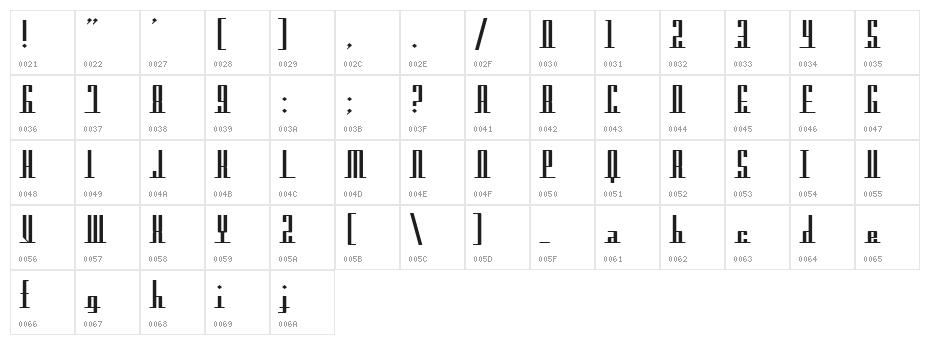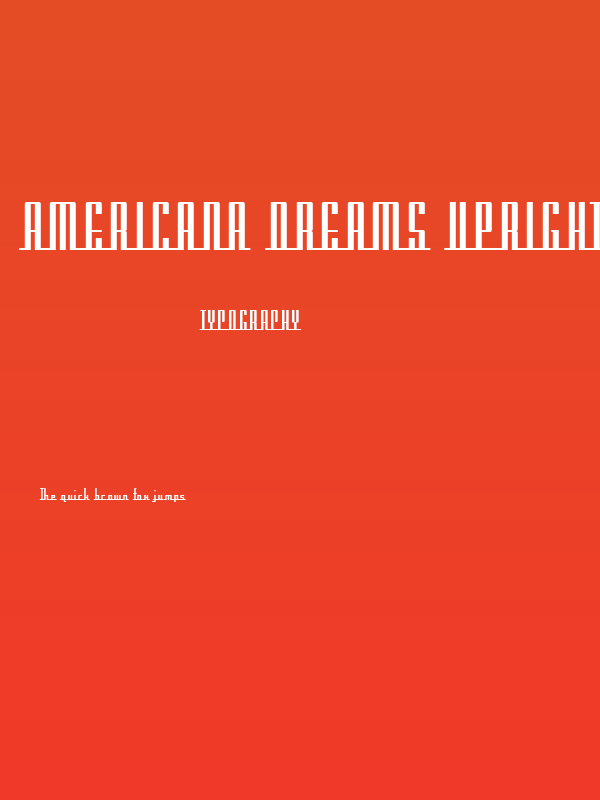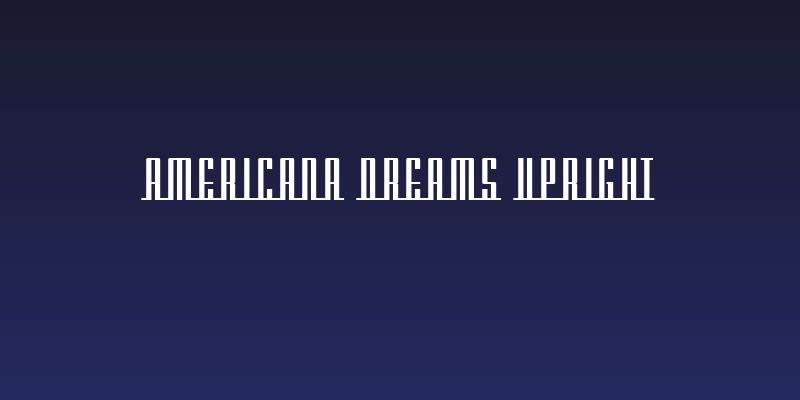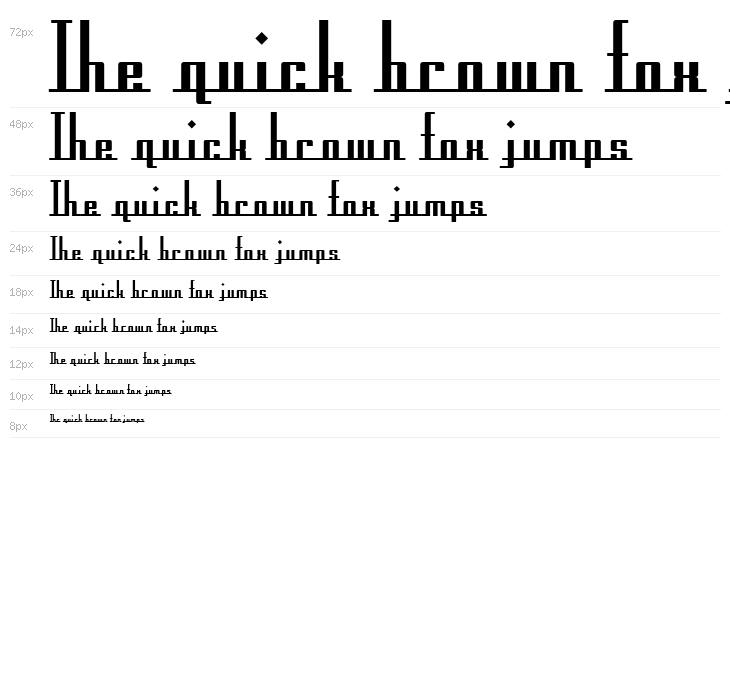
Americana Dreams Upright Font
Americana Dreams Upright Description
This font features a distinctive and bold design with a modern, geometric aesthetic. The uppercase letters are tall and narrow, with sharp angles and a consistent stroke width that gives a uniform appearance. The lowercase letters maintain the same geometric style, with some characters having unique features, such as the lowercase 't' with its elongated crossbar. The numerals are equally bold and geometric, ensuring readability and consistency across different uses. Special characters are designed to match the overall style, maintaining the font's cohesive look. This font's unique style makes it suitable for eye-catching designs.
Proposed ProjectsIdeal for branding, posters, and headlines where a modern and striking appearance is desired.